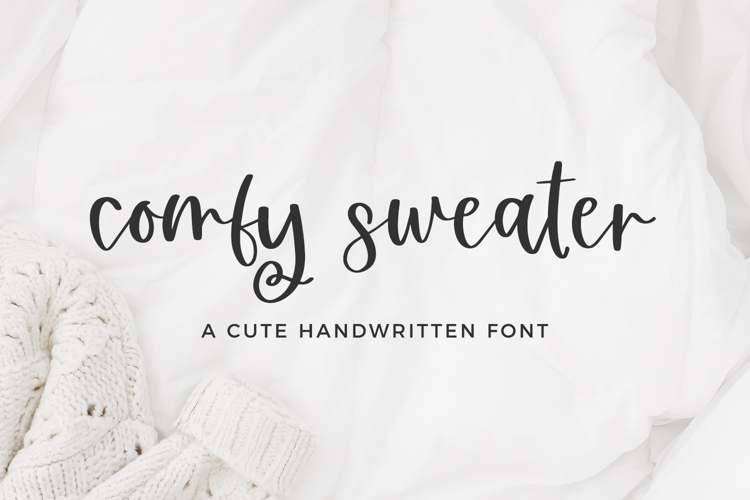
Introducing Comfy Sweater Script, a warm, bouncy calligraphy font. This handlettered script is cute, feminine, and easy to read, making it a great fit for a variety of projects!
Comfy Sweater Script includes:
- 4 alternate characters with cute flourishes - g, j, y, z
- 13 ligatures - bb, cc, dd, ee, ff, gg, ll, mm, nn, oo, rr, ss, tt